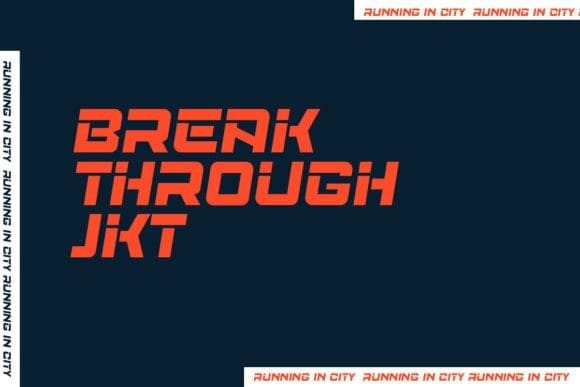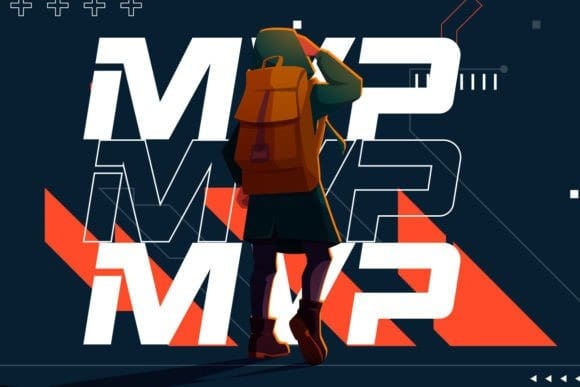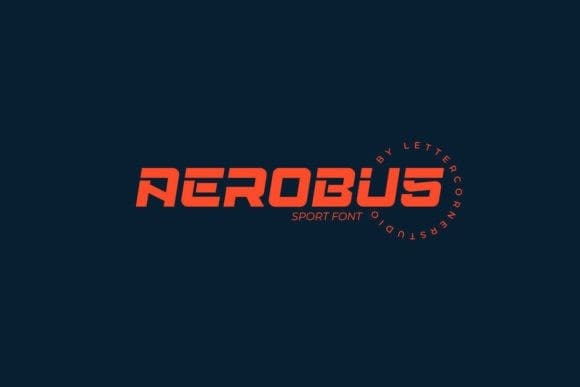
Aerobus Display Font
Aerobus Display Font is an amazing display font. It features tapered terminals and soft corners that allude to elegance and class while it’s spurred edges keep adding a great personality. It’s perfect for logos, branding, posters and more!